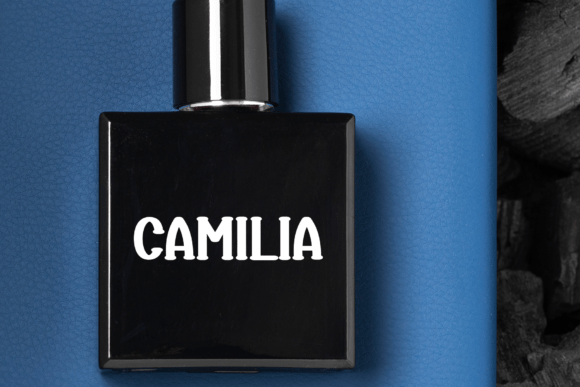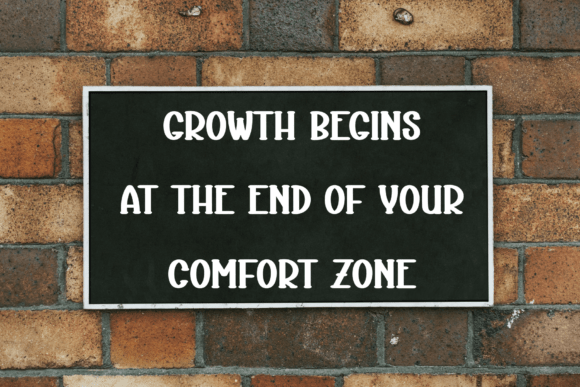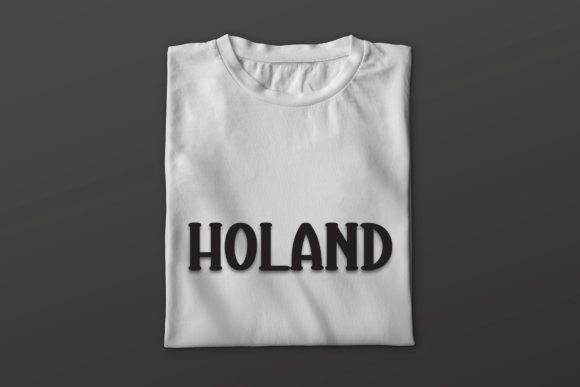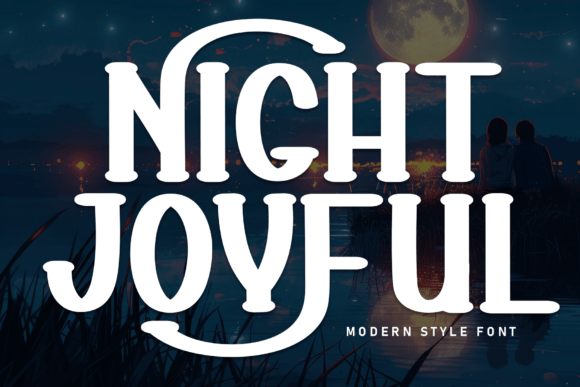
Introduction to Night Joyful Font
Night Joyful is a casual and neat display font designed to bring warmth and clarity to your projects.
With its clean structure and approachable style, it suits branding, headlines, and everyday designs The balanced letterforms offer readability and charm, making every message feel genuine and inviting.
Key Features of Night Joyful Font